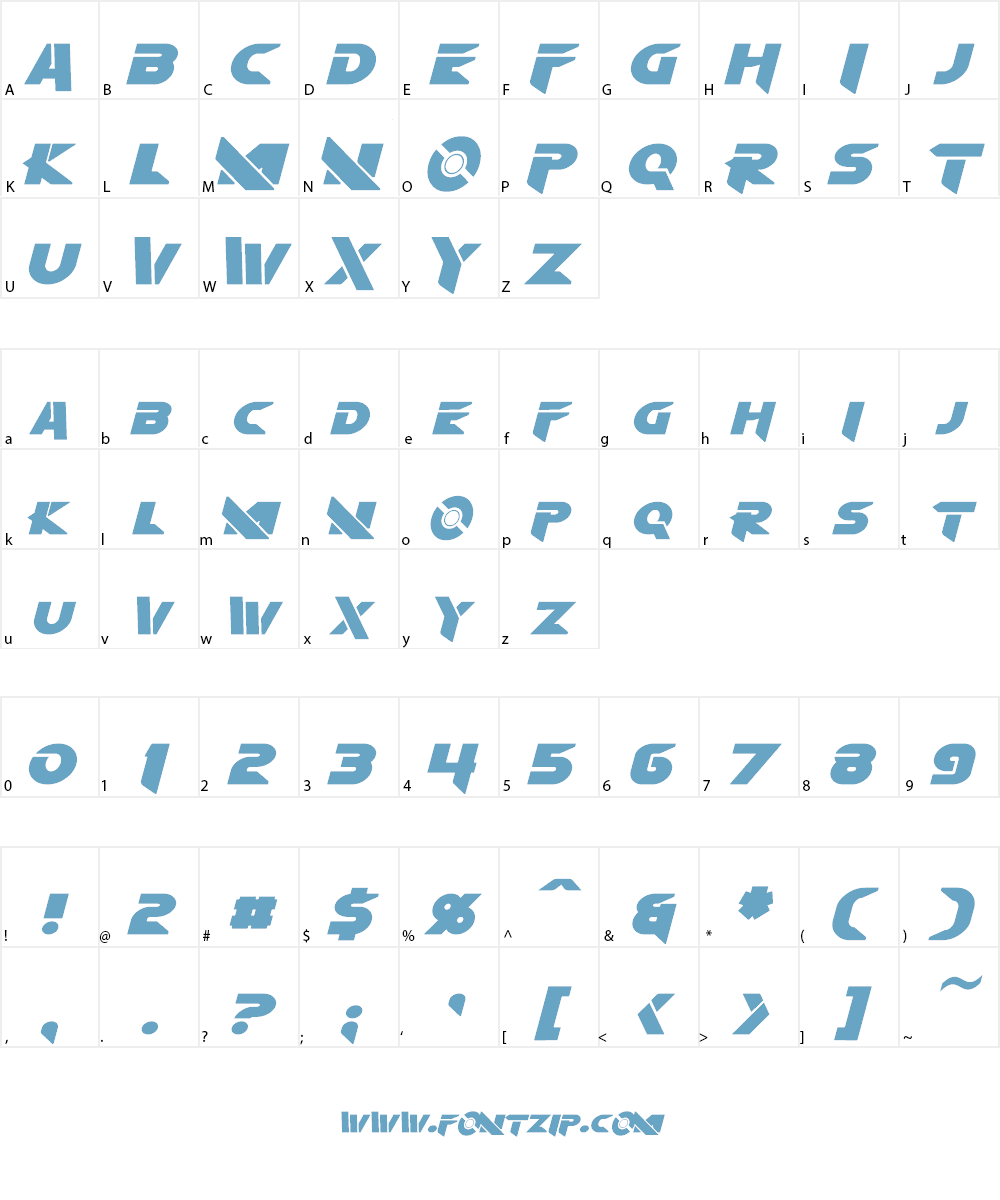
This science-fiction header font is based on the preliminary logo for R Talsorian's "Mekton Zero" role-playing game. Includes full alphabet, extended punctuation, euro. Includes italic version.